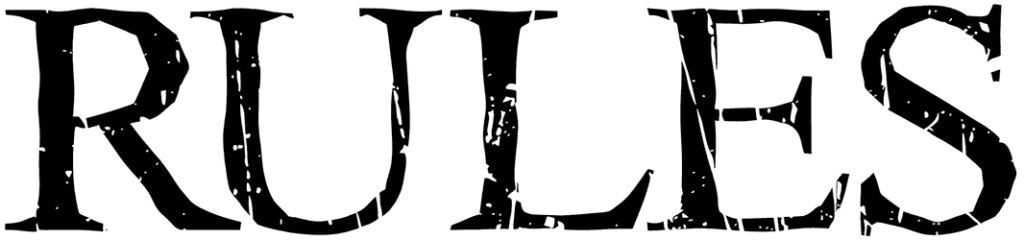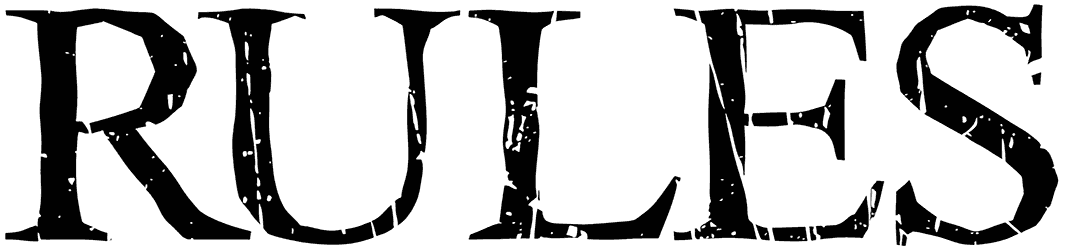
Rules Font
The old and ageless visual of a rustic font like this one will give you a great chance to impress a lot of visitors. The Rules font, with its eroded and classic letters, is going to add a ravishing mood to your creative design of a romance novel book cover. This fancy font covers all characters, and you can use it for any short or long text.